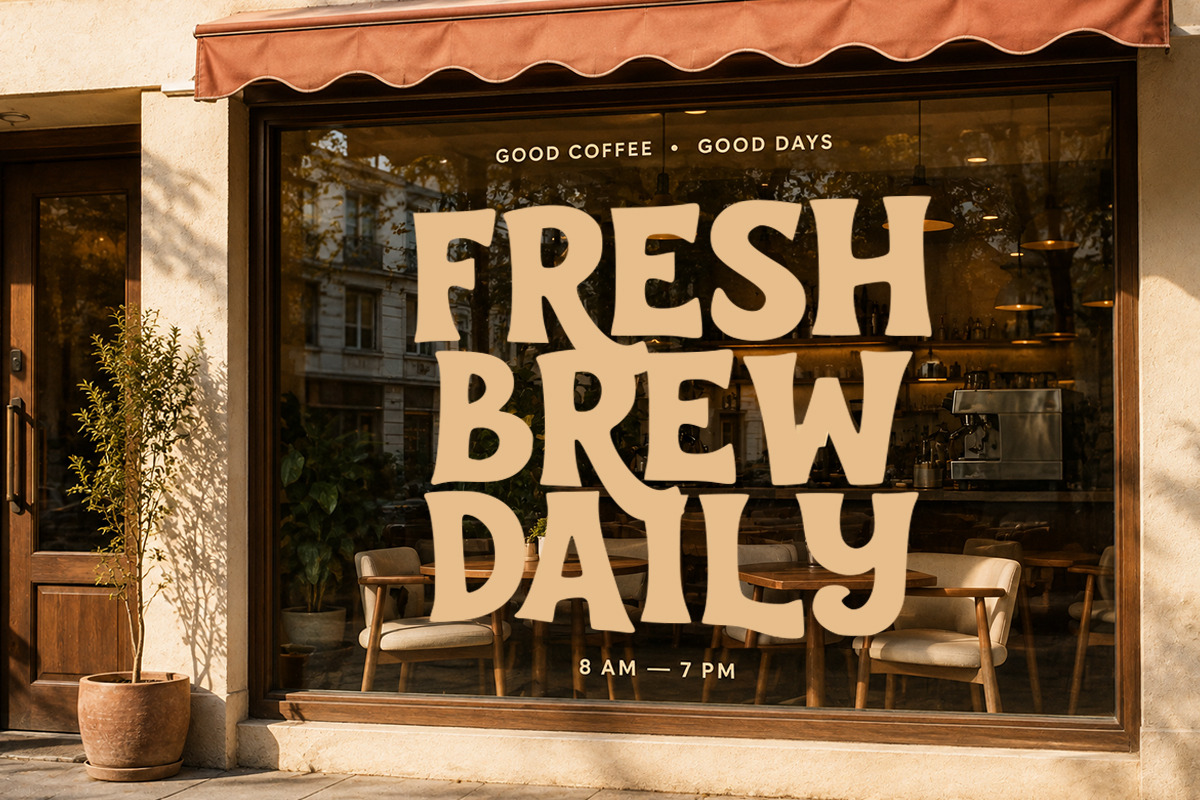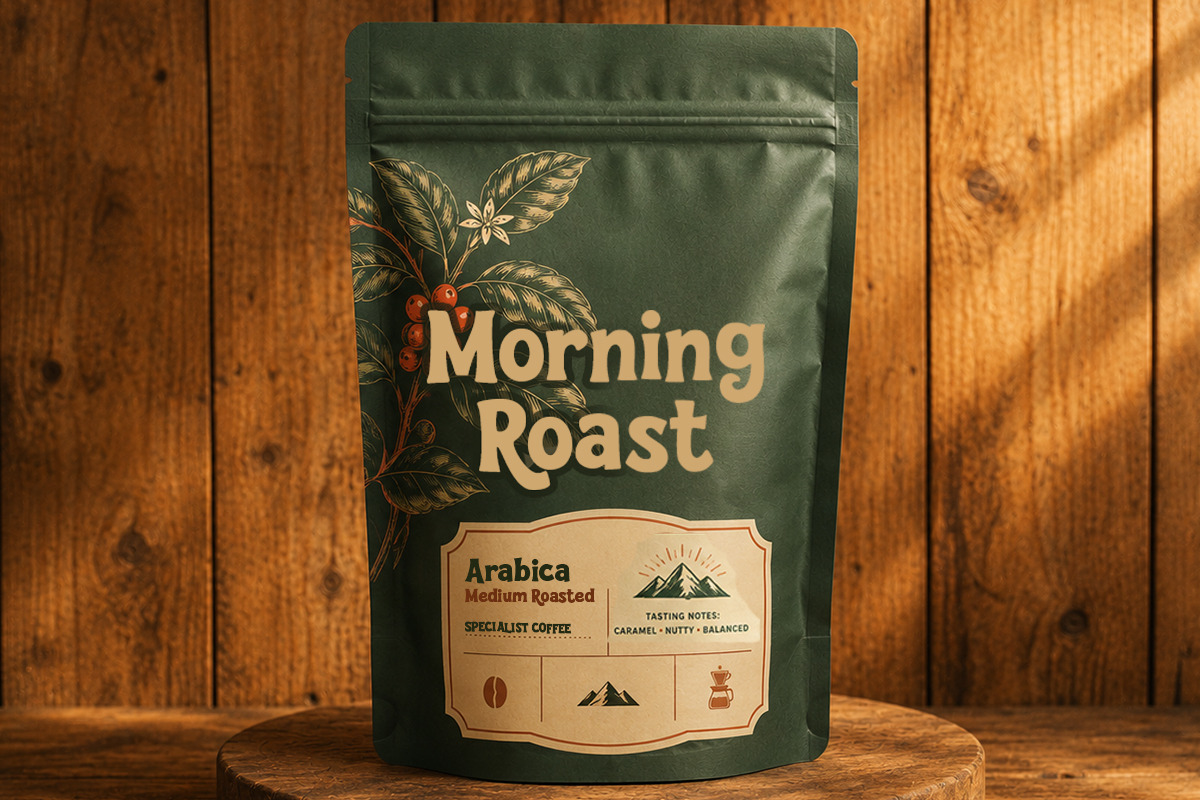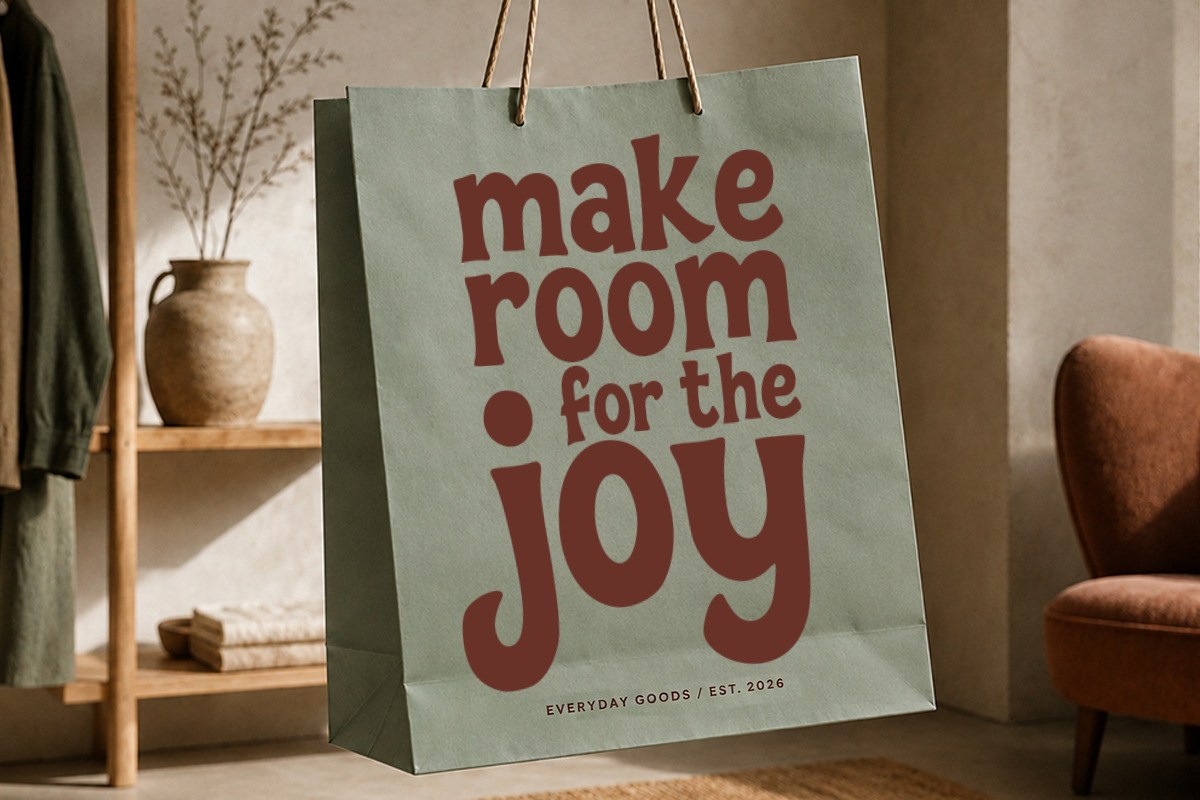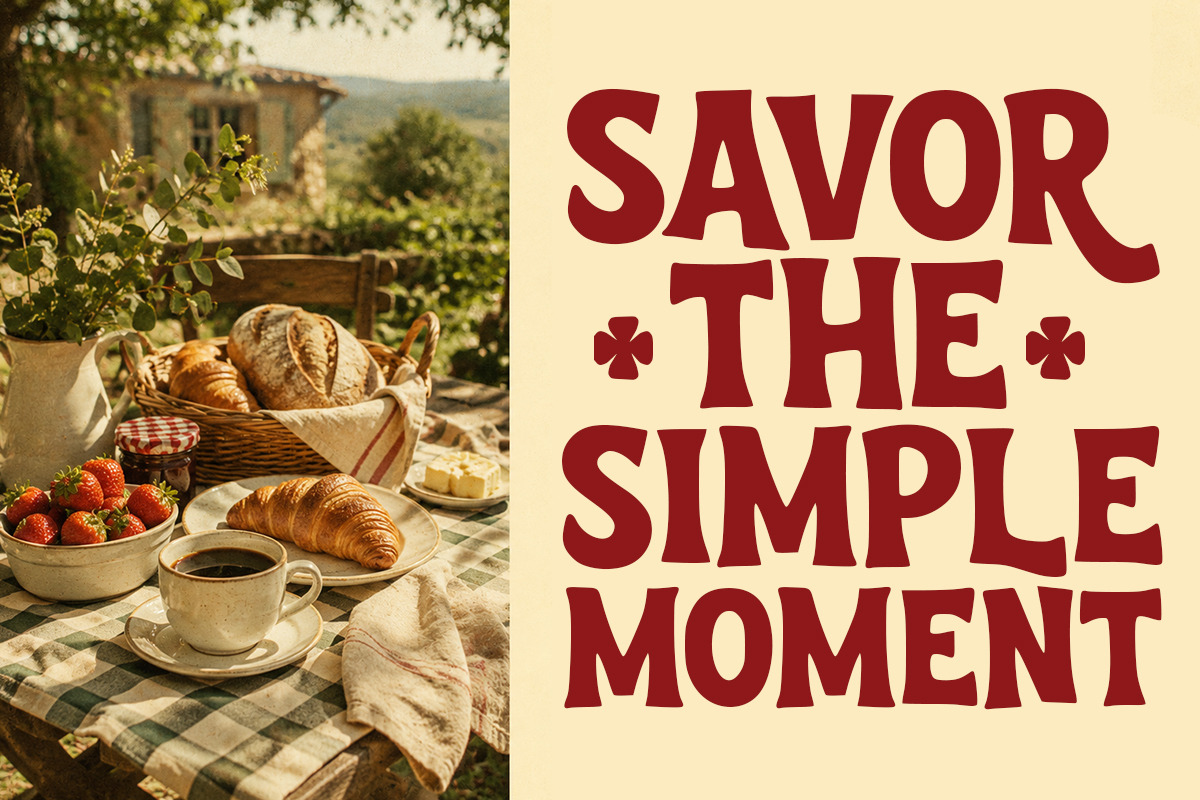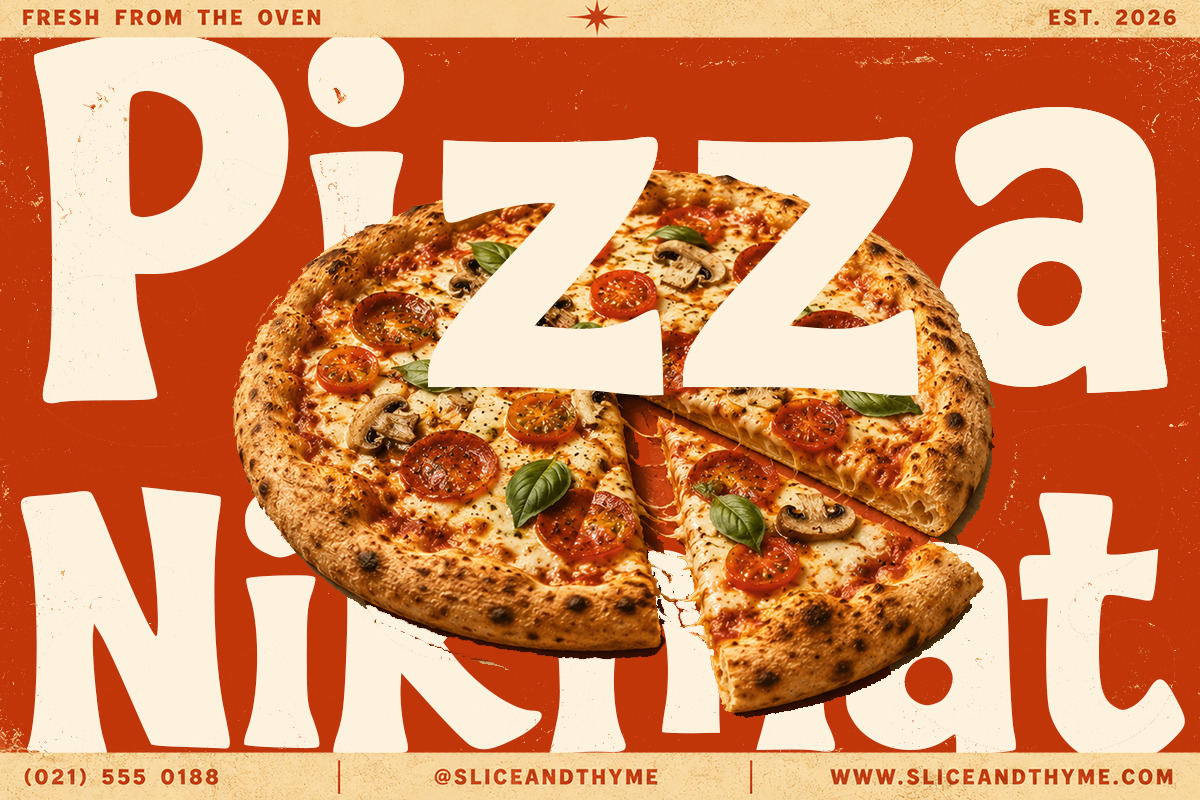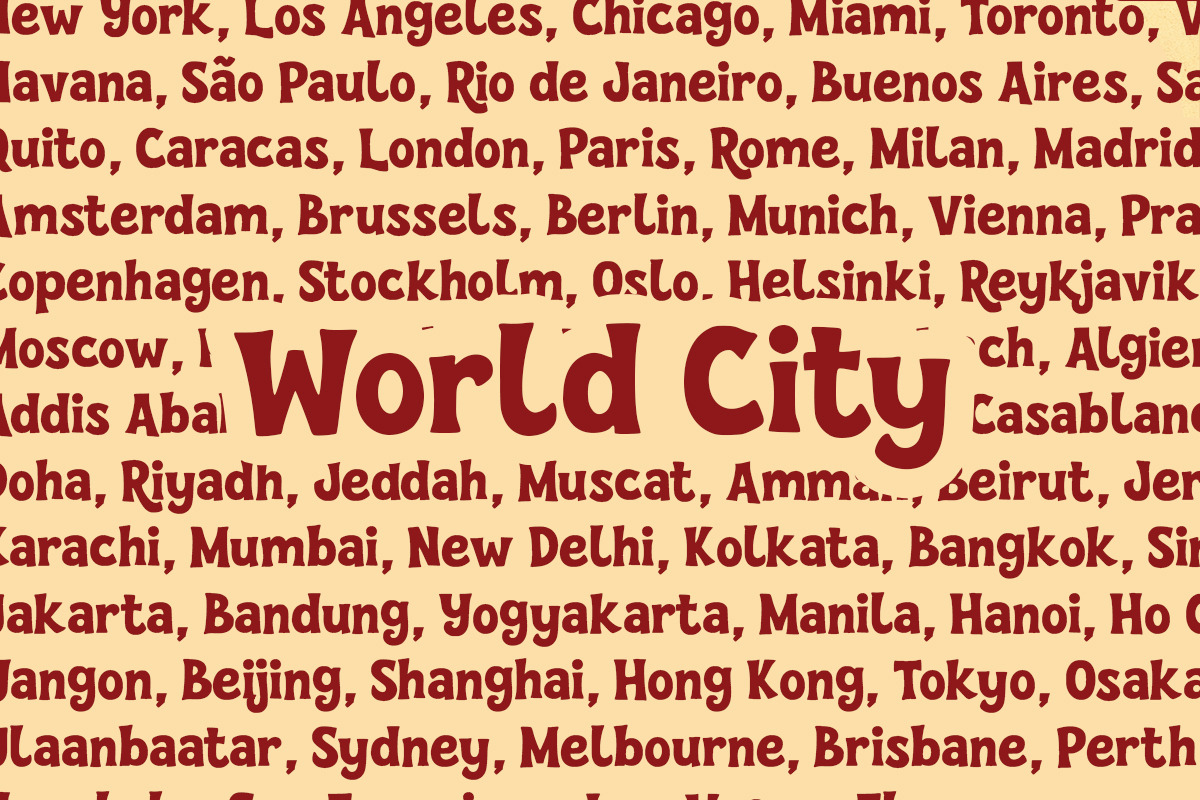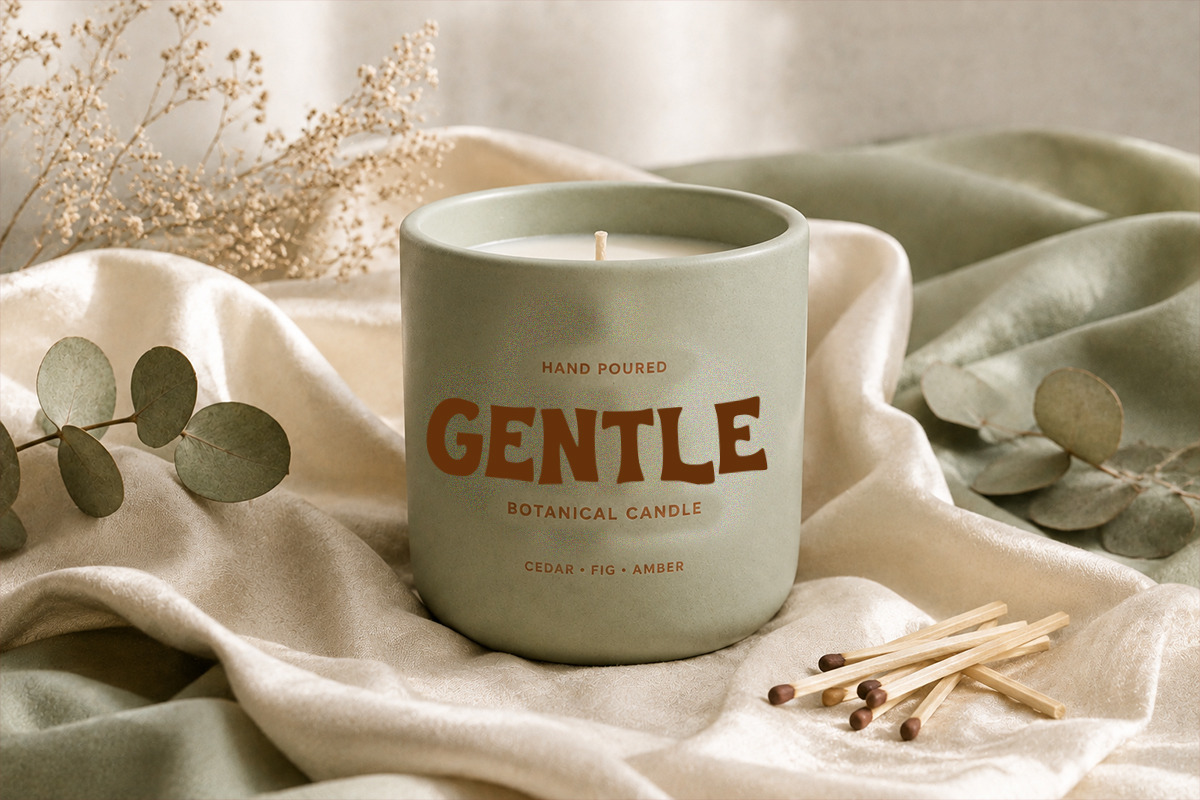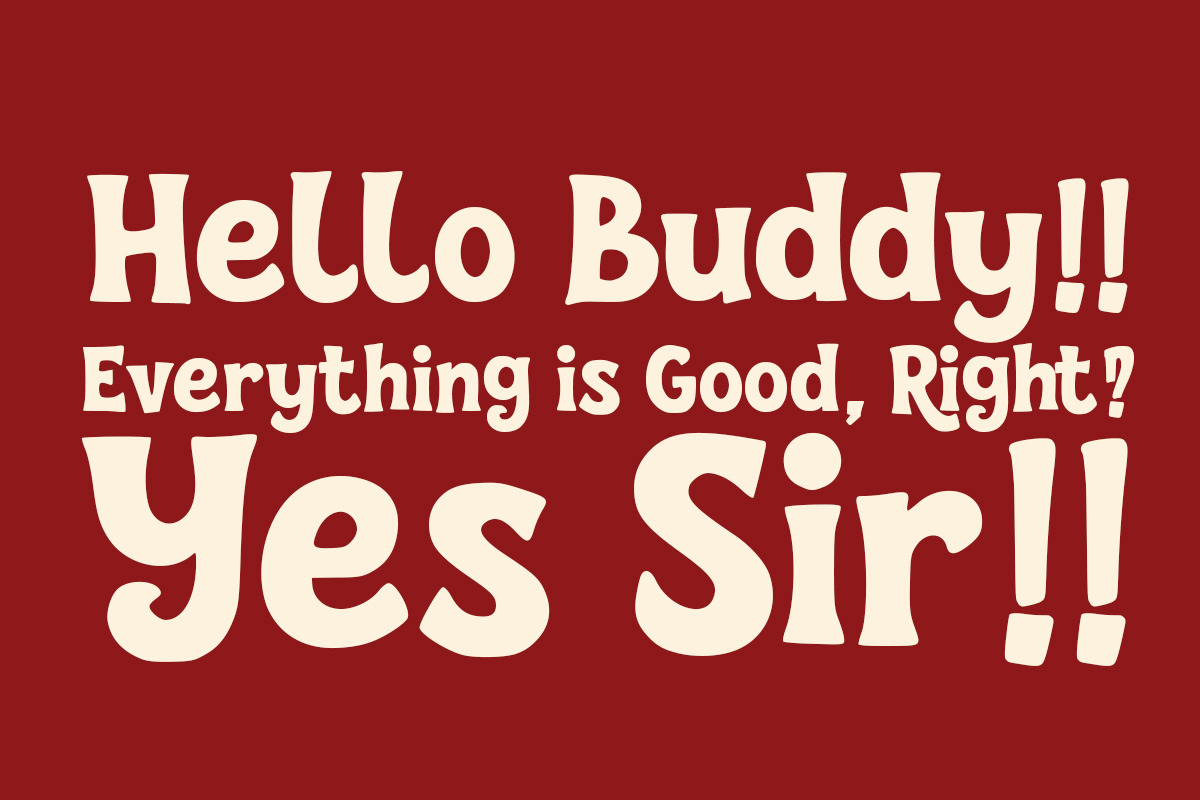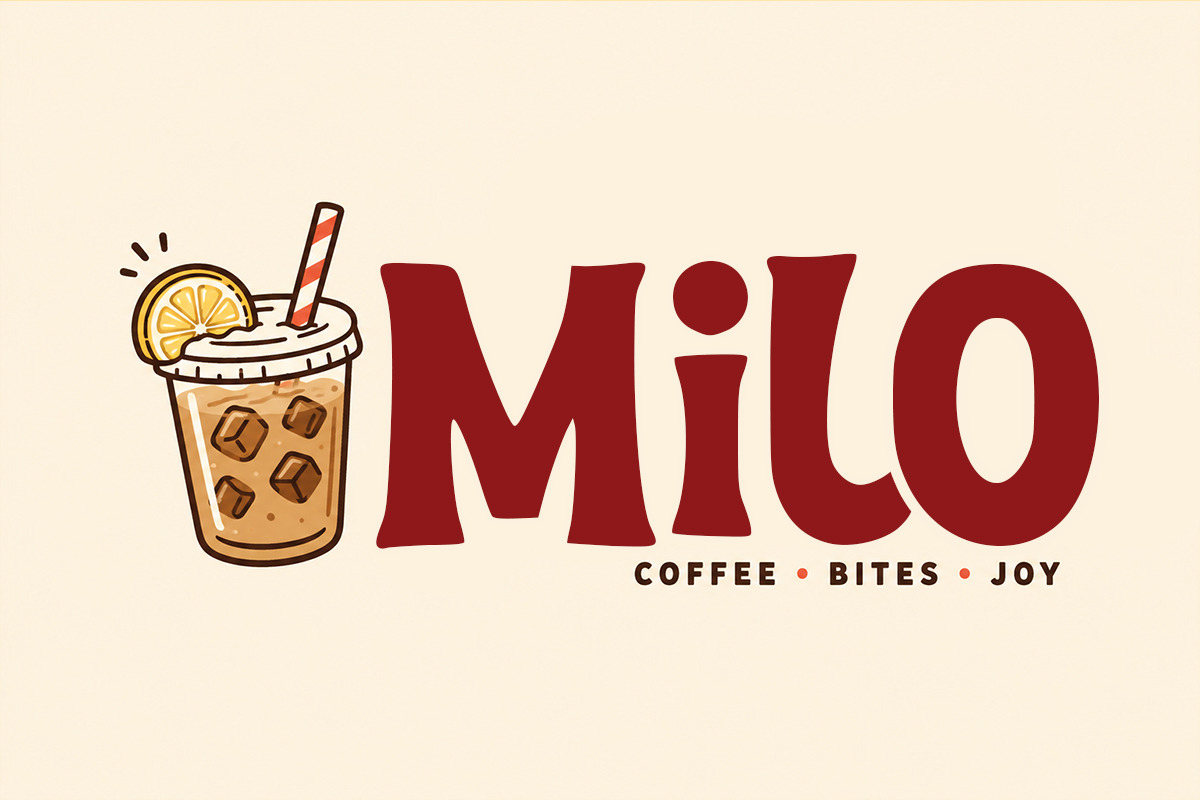
Bohemian Struggle
Infuse vintage warmth, groovy 70s flair, and organic handcrafted charm into your designs with Bohemian Struggle! This bold retro handwritten typeface features soft flared stems, expressive rounded curves, and a lively, fluid rhythm. Its nostalgic silhouette balances bold display impact with approachable hand-drawn personality, making headers and titles instantly memorable.
Ideal for bohemian branding, vintage apparel prints, retro poster graphics, cafe packaging, quote art, sticker sheets, and custom Cricut or Silhouette craft SVG projects!